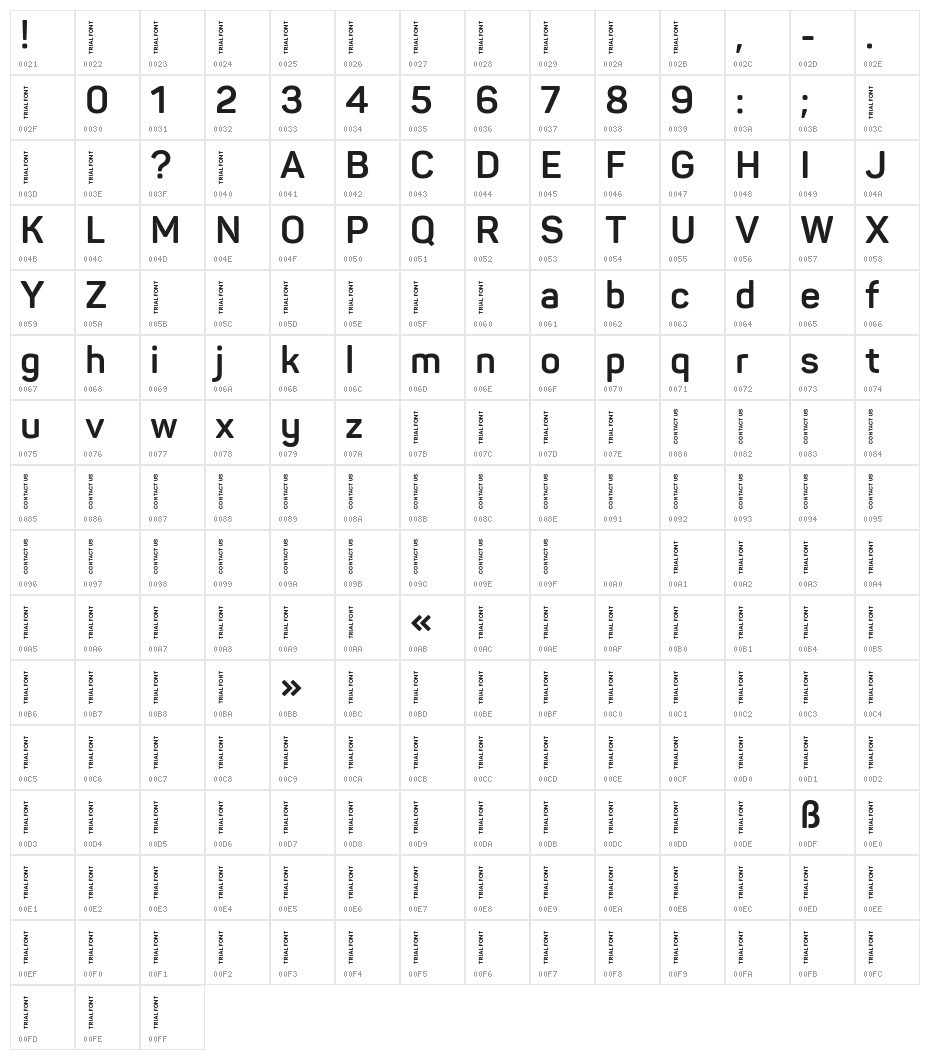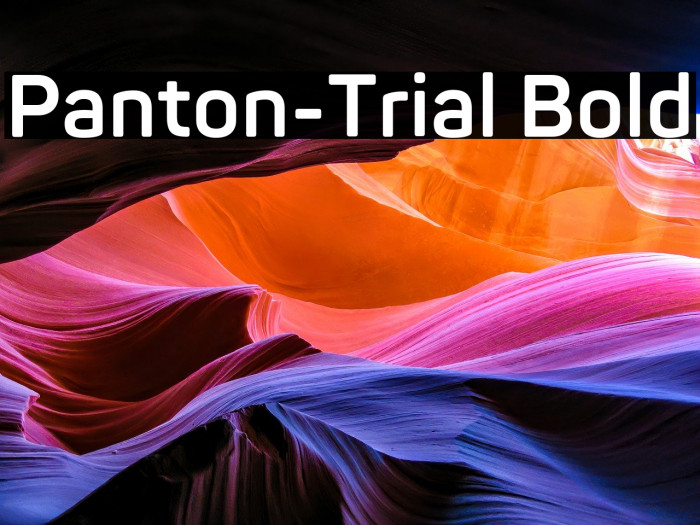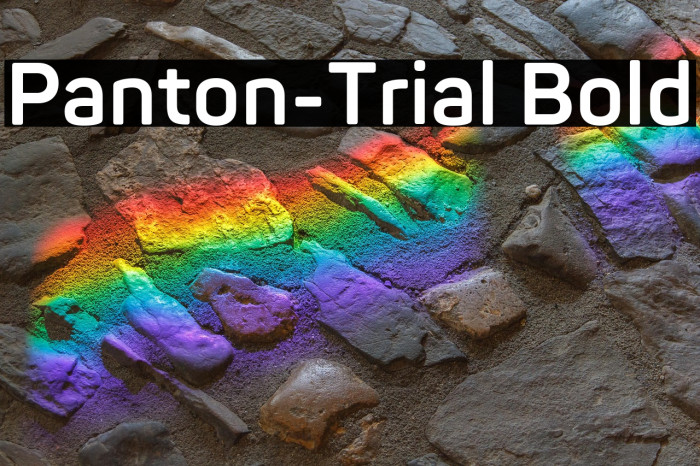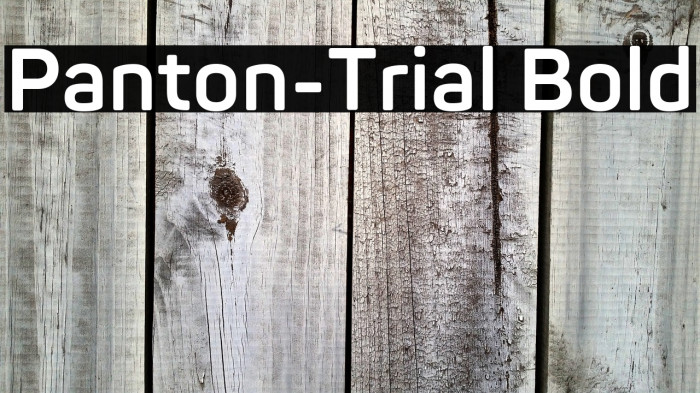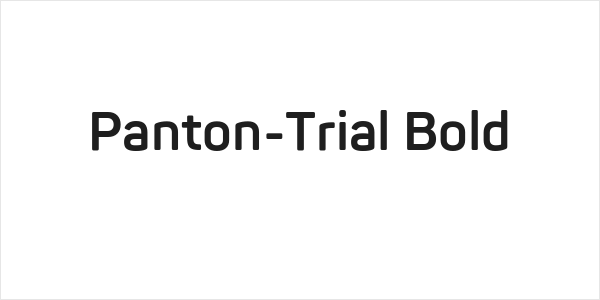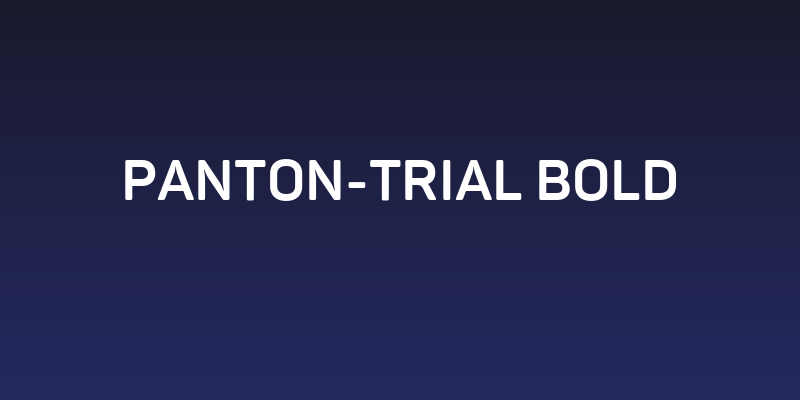
Panton-Trial Bold Font
Panton-Trial Bold Description
This font features a clean and modern sans-serif design with a bold weight, making it highly legible and versatile for various applications. The characters are well-proportioned with a consistent stroke width, contributing to its contemporary appearance. The uppercase and lowercase letters maintain a uniform style, while the numerals are clear and easily distinguishable. The special characters are designed to complement the overall aesthetic, ensuring a cohesive look across all text elements.
| Use Case | Headlines, Logos, Digital interfaces |
| Proposed Projects | Ideal for branding, advertising, headlines, and digital interfaces where clarity and impact are essential. |